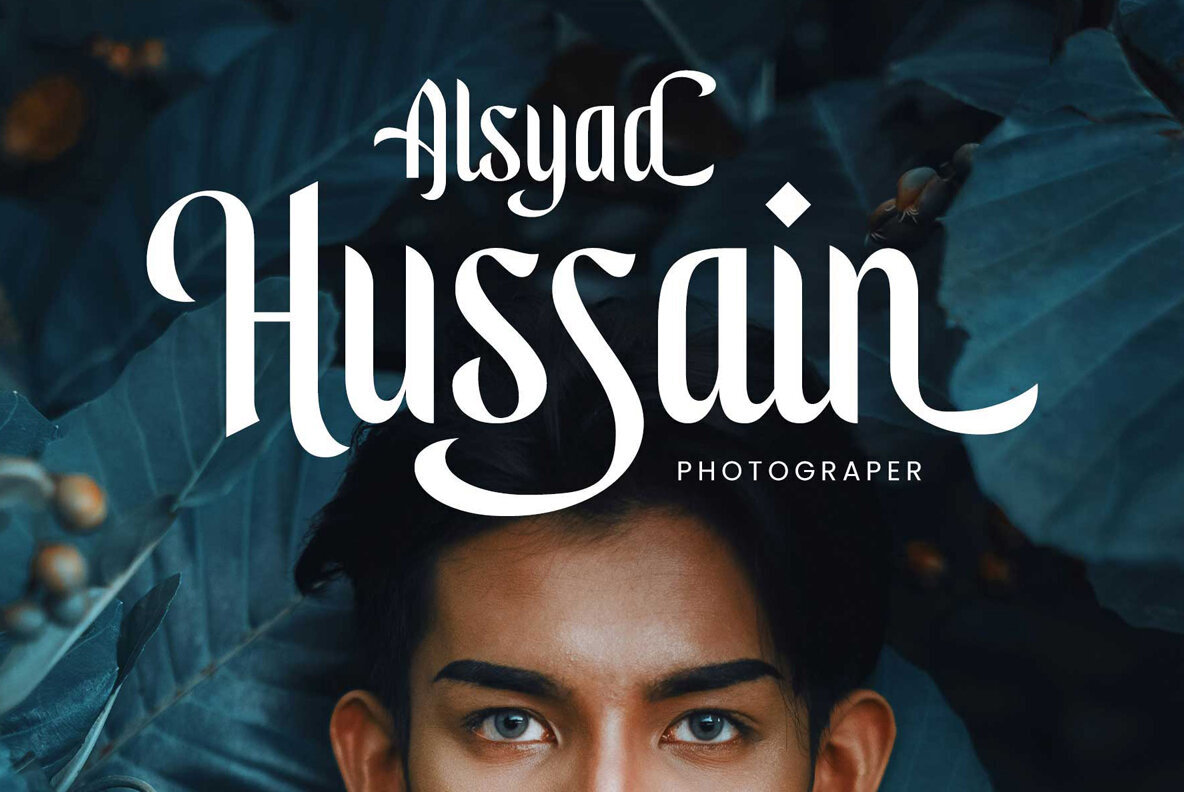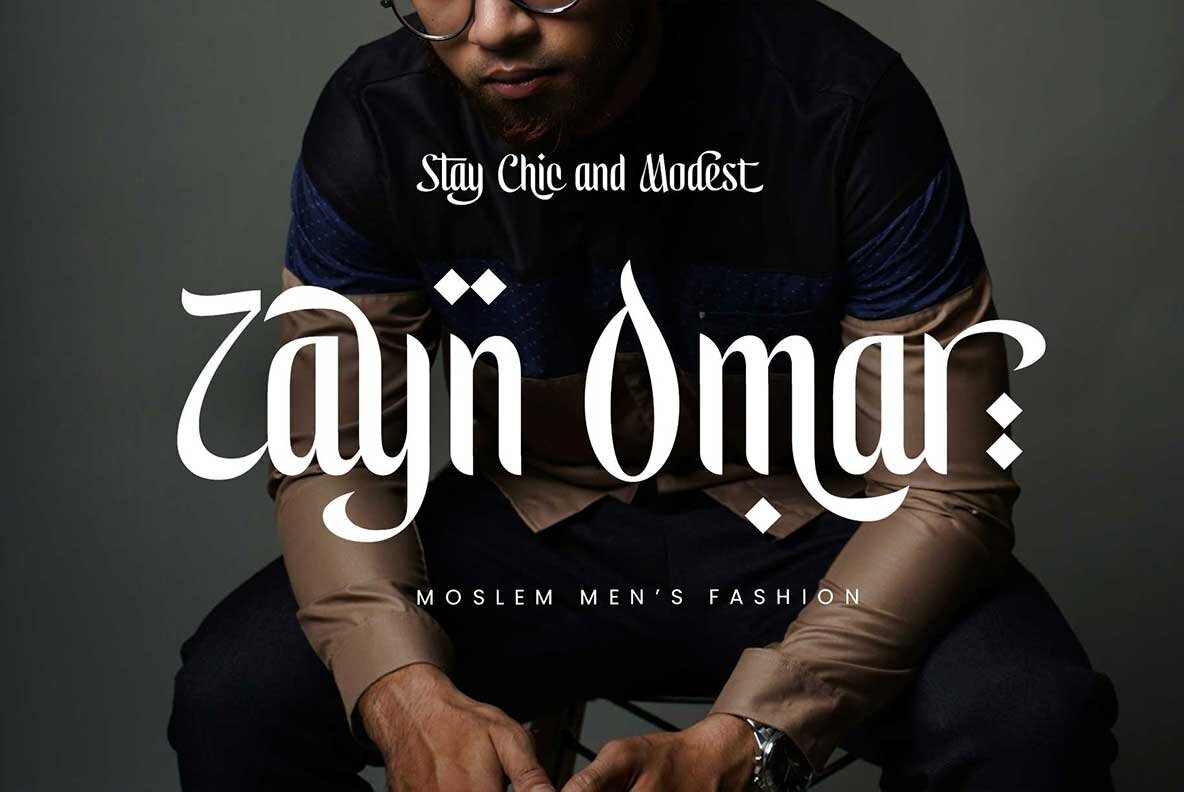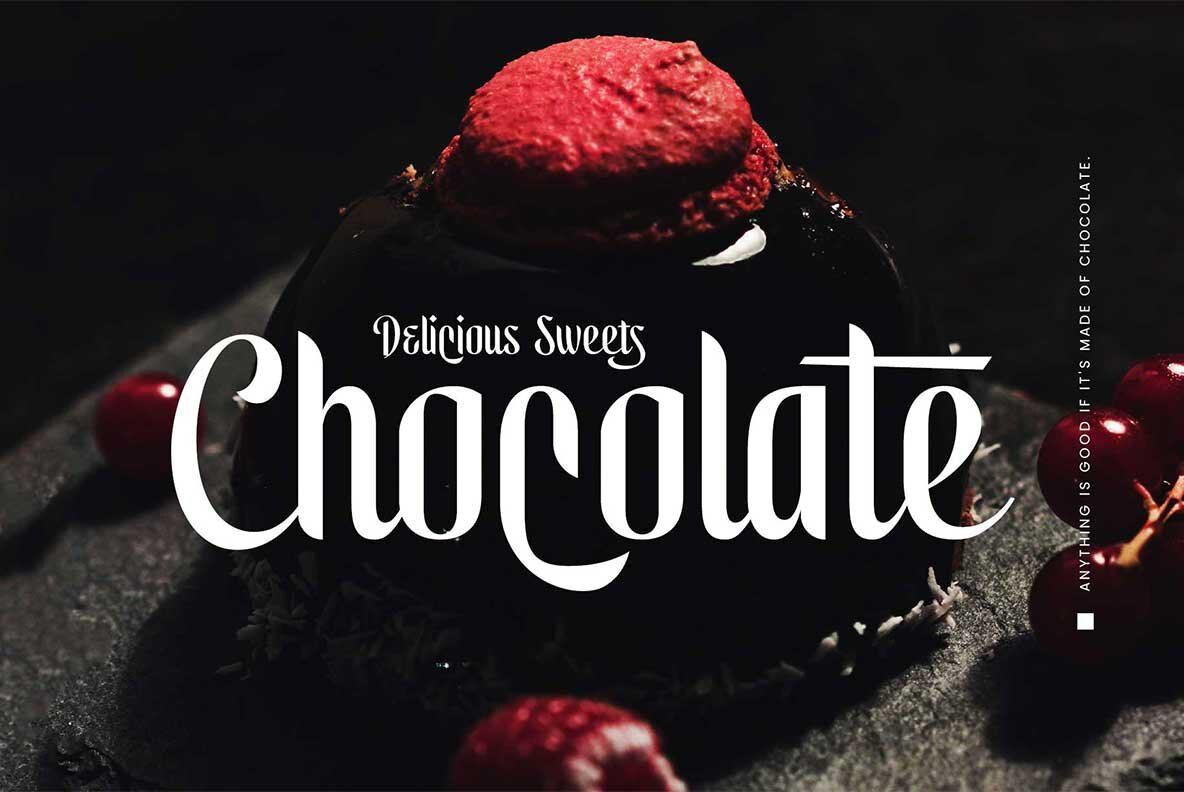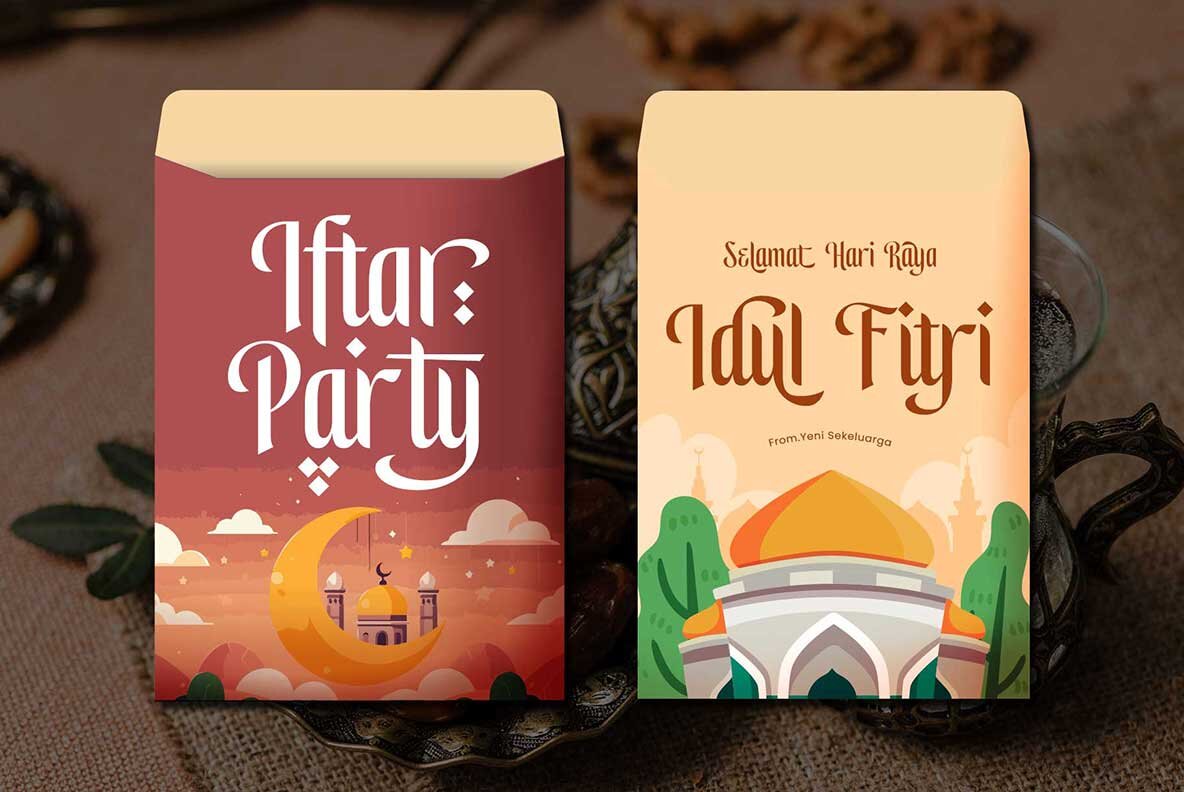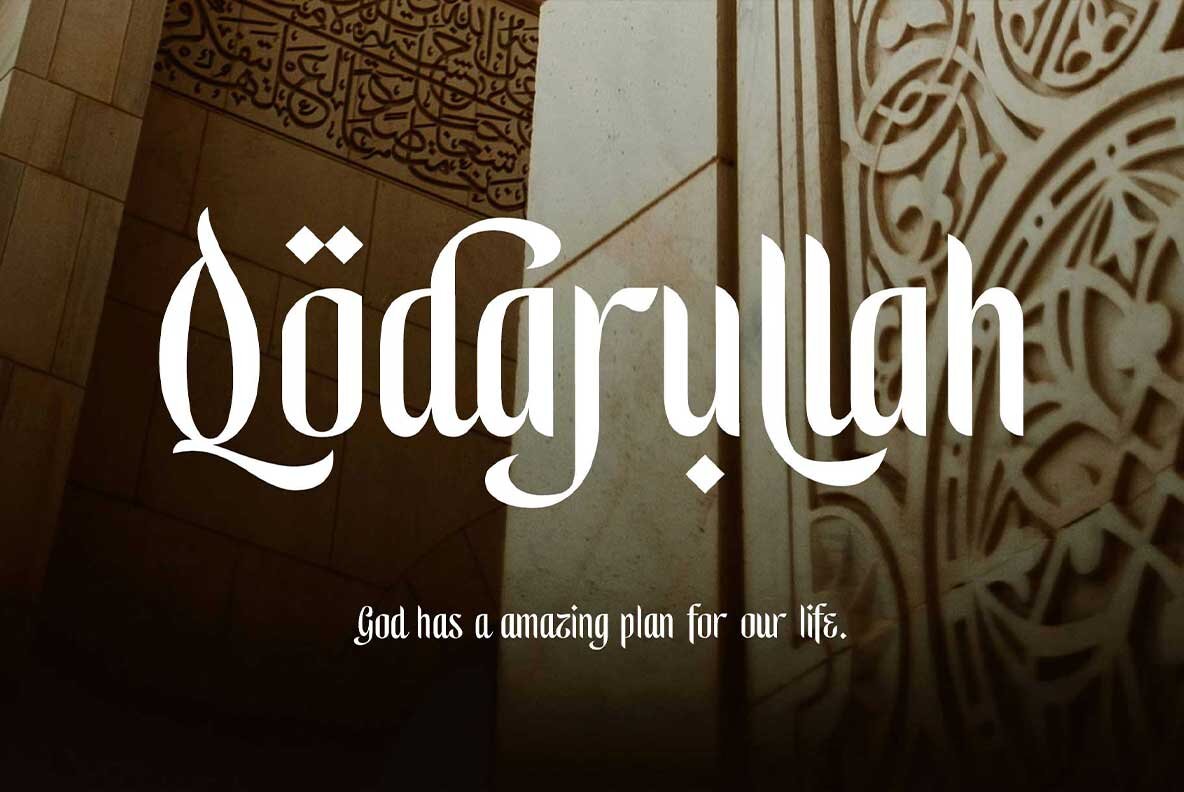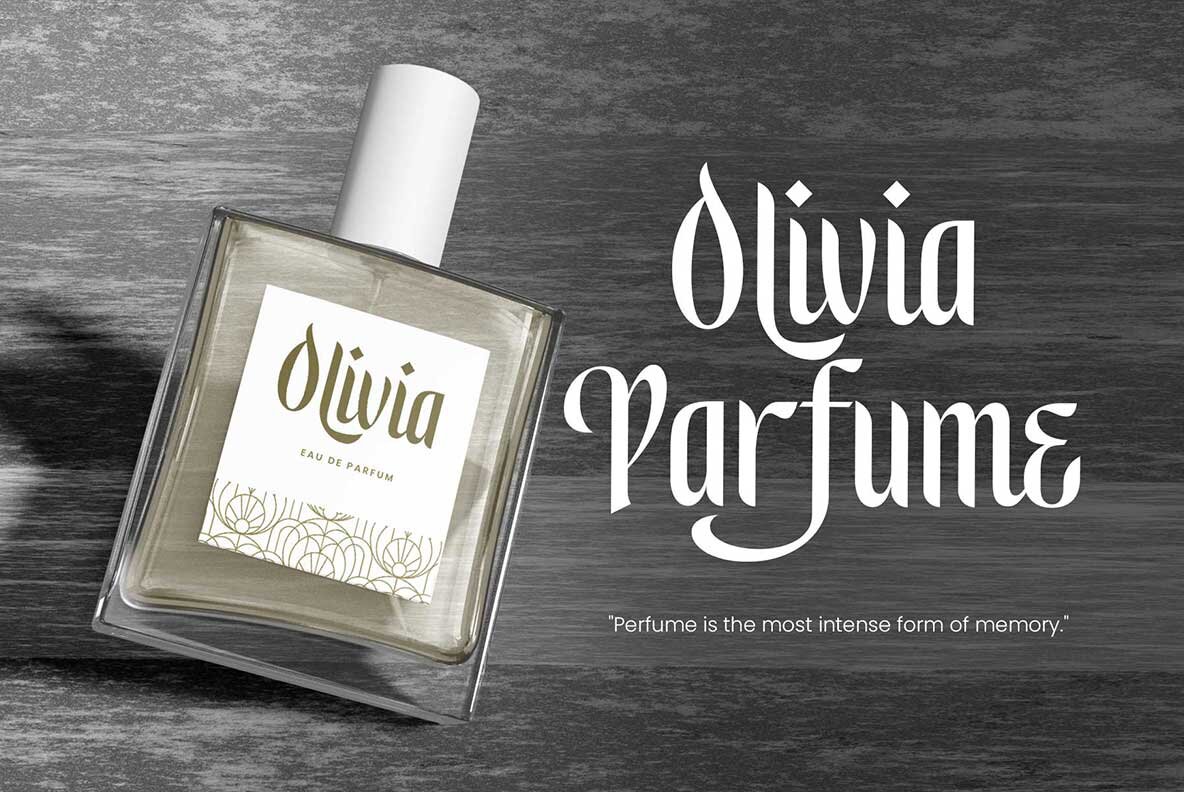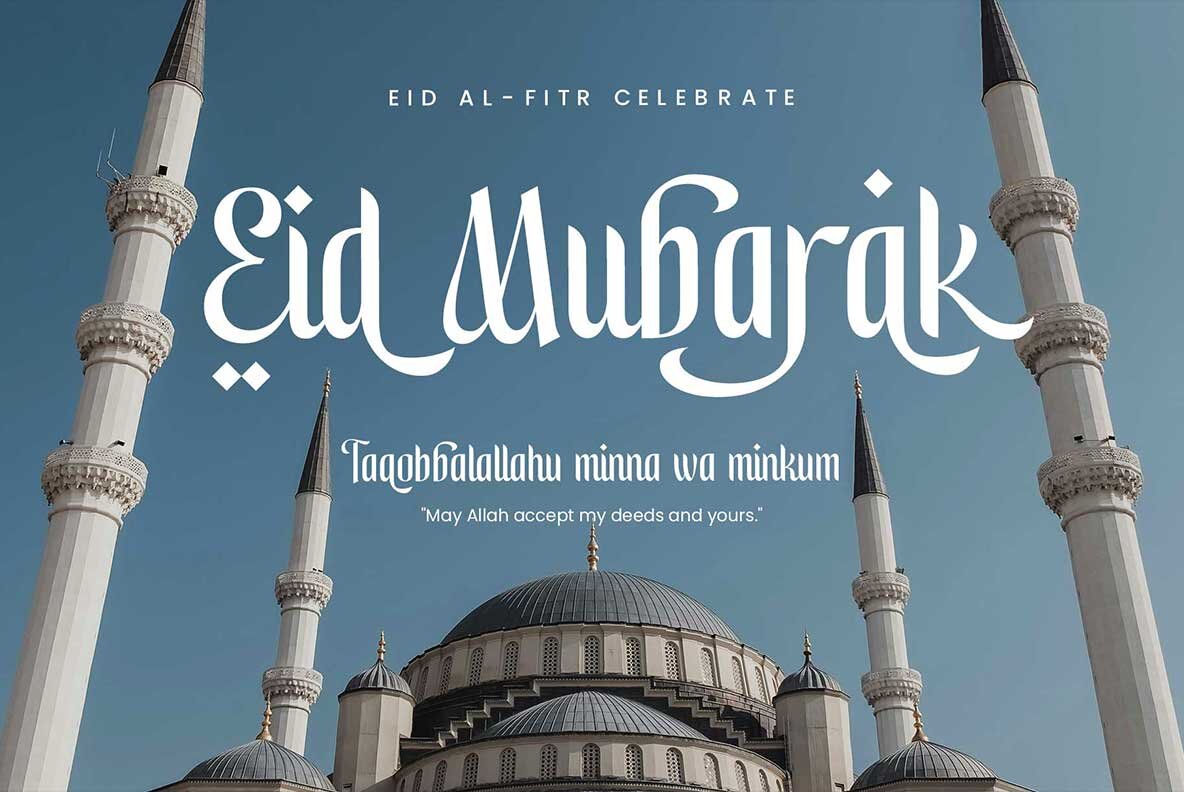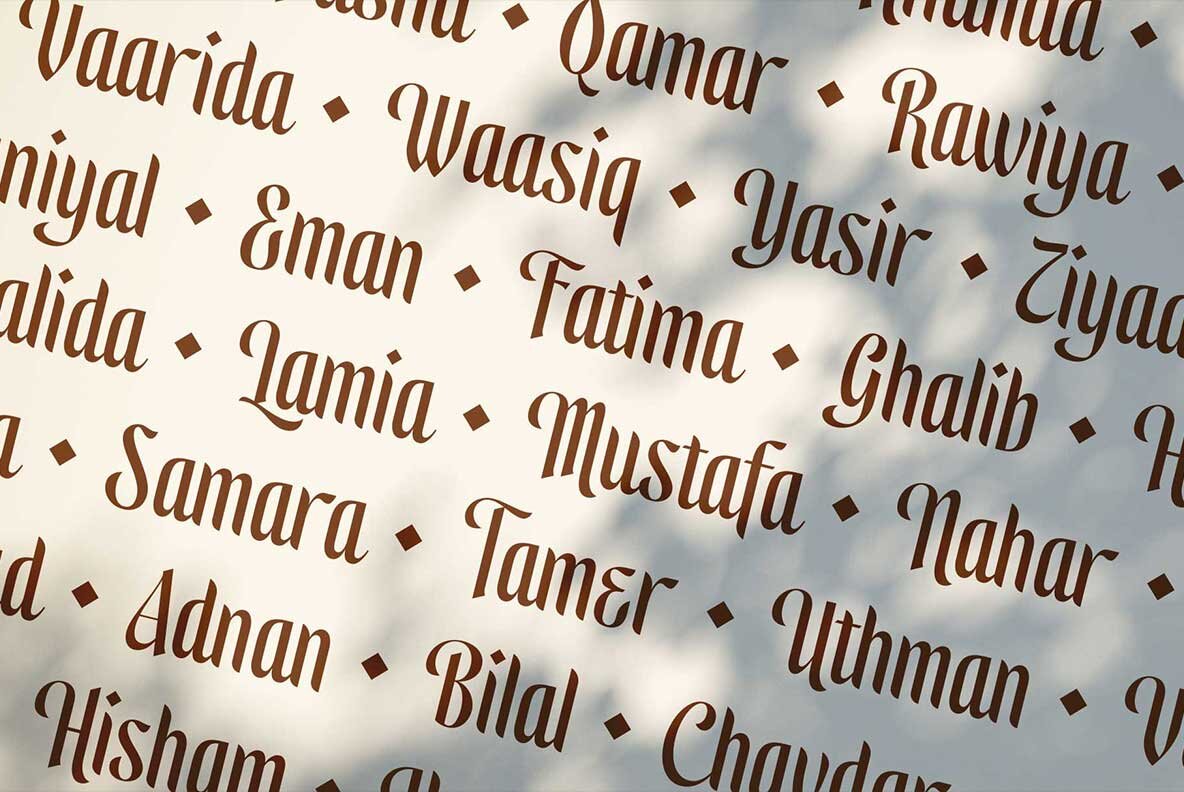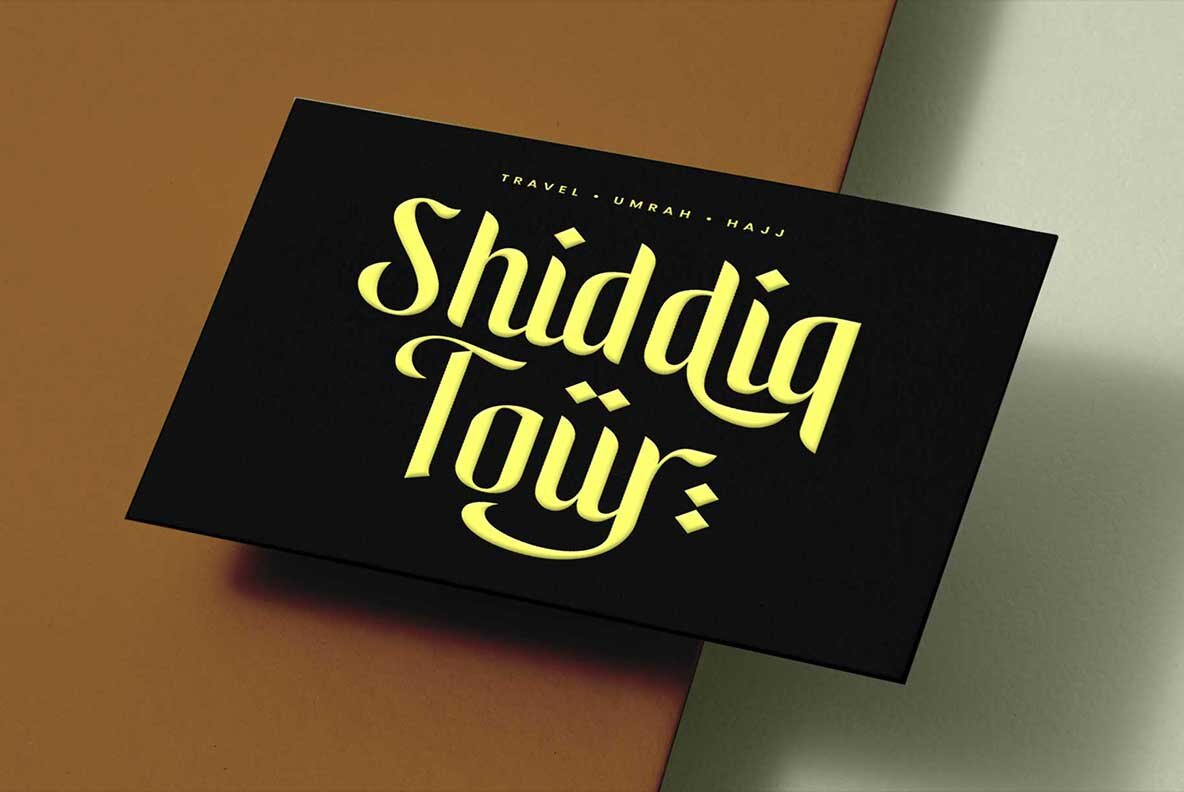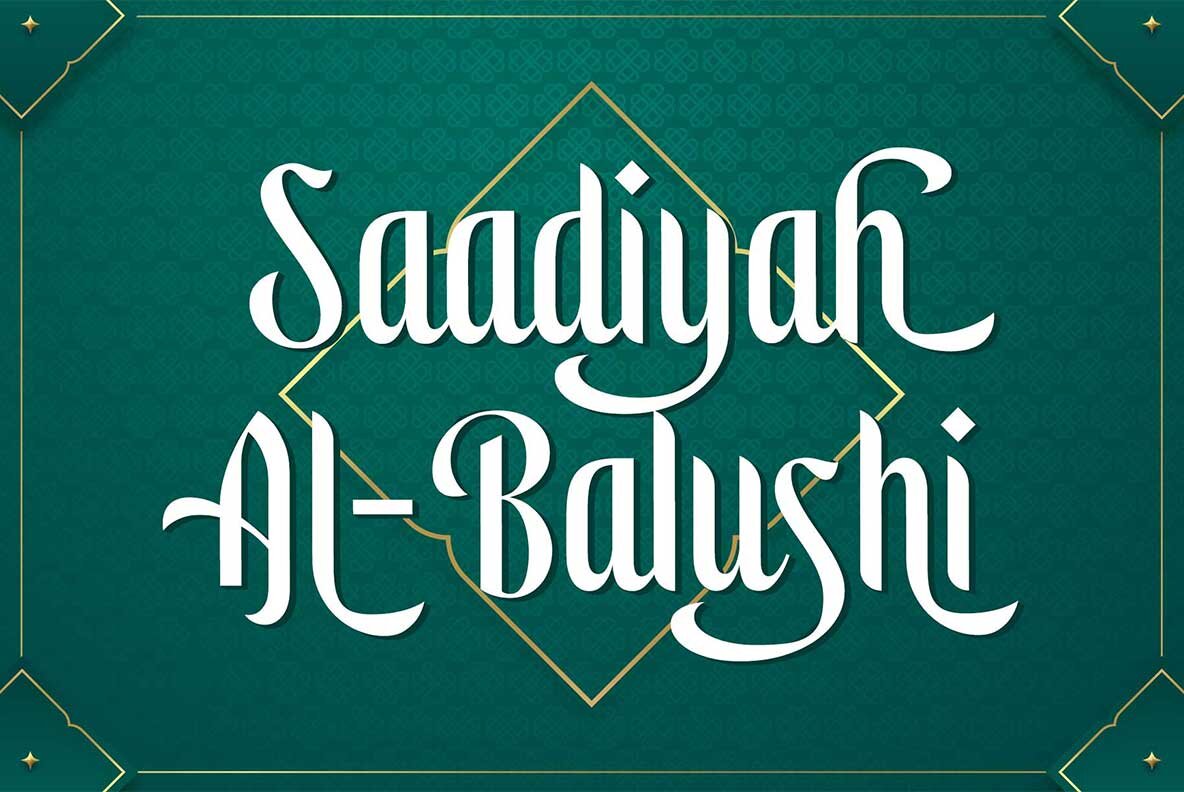
Safaniah Font
Safaniah Regular
Transform your designs with Safaniah, a sleek, condensed Arabic-style font, ideal for bold headlines and standout display text. This modern yet elegant font brings a touch of Middle Eastern charm to any project. Designed for simplicity, Safaniah combines a minimalist aesthetic with traditional Arabic flair, making it perfect for impactful and timeless designs.
Safaniah features versatile alternative characters, allowing you to add beauty and sophistication seamlessly. It's an excellent choice for posters, weddings, stickers, labels, packaging, fashion, logos, and signage. The font supports uppercase, lowercase, numbers, symbols, punctuation, multilingual characters, stylistic alternates, and ligatures, ensuring a comprehensive range of uses in any creative project.